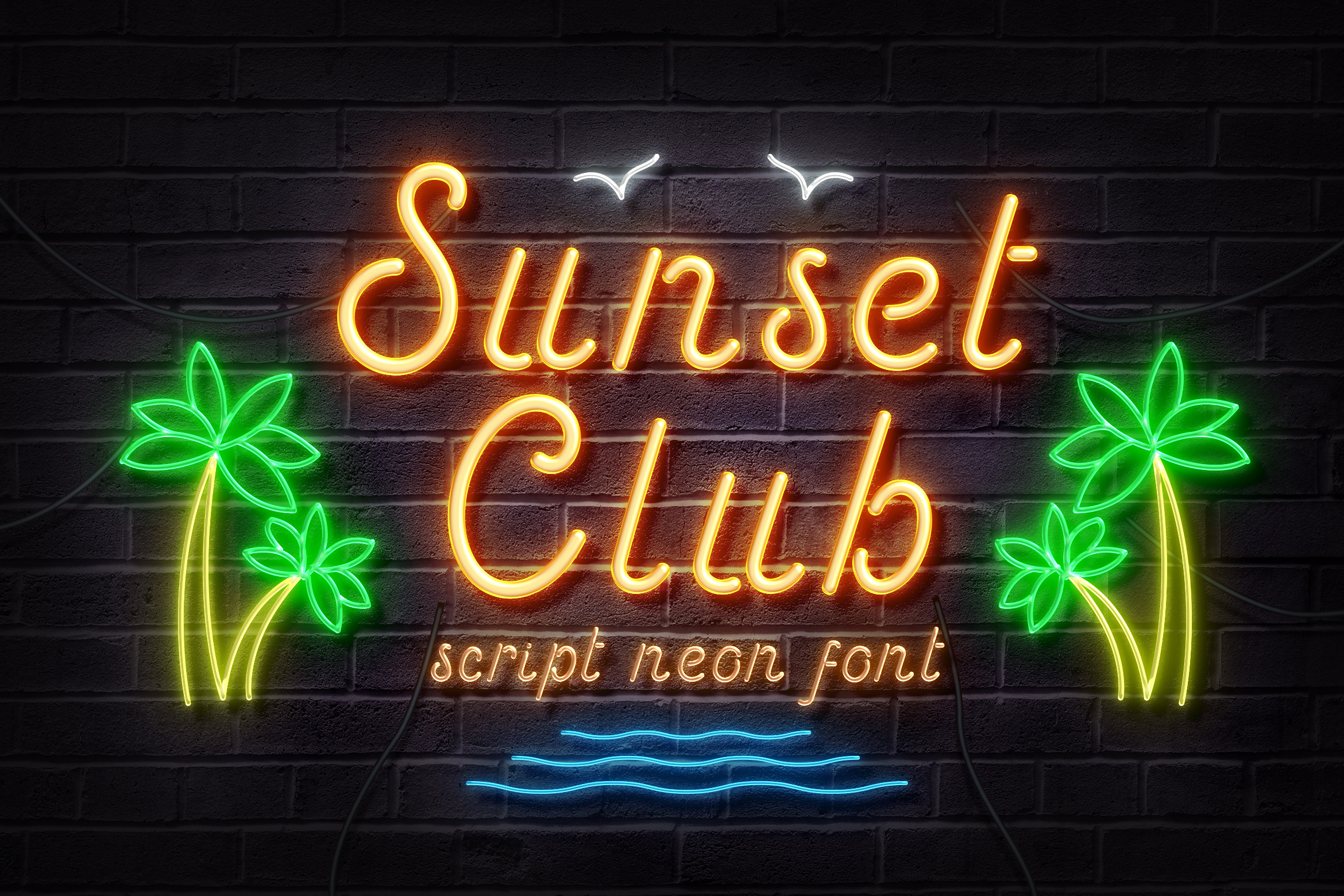
Sunset Club - Script Neon Font
Sunset Club is a modern Script neon font that stands out with a neon light effect which is perfect for a nightlife themed design such as signboard club, beach etc. This font will definitely bring your design to life! Full Version Download Here :